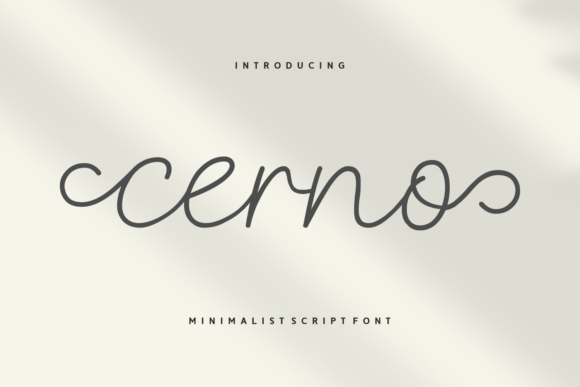
Discover the Timeless Elegance of Cerno Font
There’s nothing quite like the feeling of landing on a design that perfectly captures the essence of your vision. It’s a moment of pure creative satisfaction, where every element falls into place, and your message shines through with clarity. For designers, this moment is a reminder that the right font can make all the difference in elevating a project from good to great.
Cerno Font is a minimalist script font designed to embody simplicity and elegance. Its clean, flowing lines make it perfect for modern designs, branding, and creative projects that demand a touch of subtle sophistication. Whether you’re crafting a logo, creating a marketing campaign, or designing a website, Cerno Font offers a versatile and refined solution that will leave a lasting impression.
For designers, Cerno Font is a valuable tool in their creative arsenal. Its understated yet powerful design allows it to seamlessly integrate into various projects, from fashion and beauty to technology and beyond. With Cerno Font, you’ll be able to convey your message with style and sophistication, setting your designs apart from the rest.
Cerno Font Key Features
- Unique Characteristics: This font features a distinctive, modern design with clean lines and geometric shapes, making it ideal for use in digital and print media, including logos, branding, and packaging.
Cerno Font Review
I’ve had the chance to work with the Cerno font, and overall, I’m quite impressed. ✨ Here are some of its strengths:
- Unique aesthetic: Cerno’s blend of modern and vintage elements gives it a distinctive look that can elevate any design.
- High legibility: Despite its unique style, the font remains highly readable, making it suitable for a wide range of applications.
- Support for multiple languages: Cerno comes with support for over 100 languages, making it a versatile choice for global audiences.
- Character set limitations: While Cerno supports a wide range of languages, its character set may not be comprehensive for some scripts or languages.
- Lack of bold weight: The font’s bold weight is not as robust as some users might expect, which can affect its readability in certain contexts.
Overall, I think Cerno is a solid choice for designers looking for a unique, high-legibility font. While it may not be perfect, its strengths outweigh its limitations, making it a valuable addition to any design toolkit.
Tips for Getting the Most Out of Cerno Font
1. Use Cerno Font for headings and titles to add a touch of elegance.
2. Pair Cerno Font with a clean sans-serif font for body text.
3. Experiment with different font sizes and styles to create visual interest.
4. Use Cerno Font in combination with bold and italic styles to add emphasis.